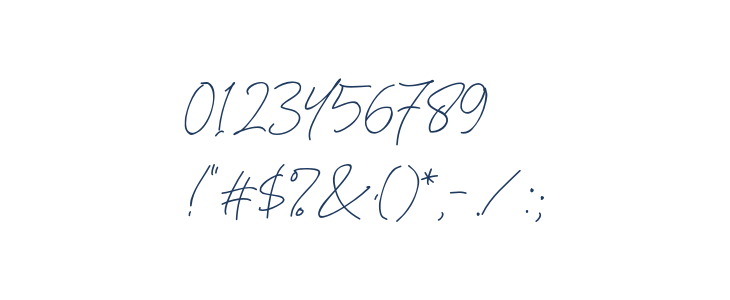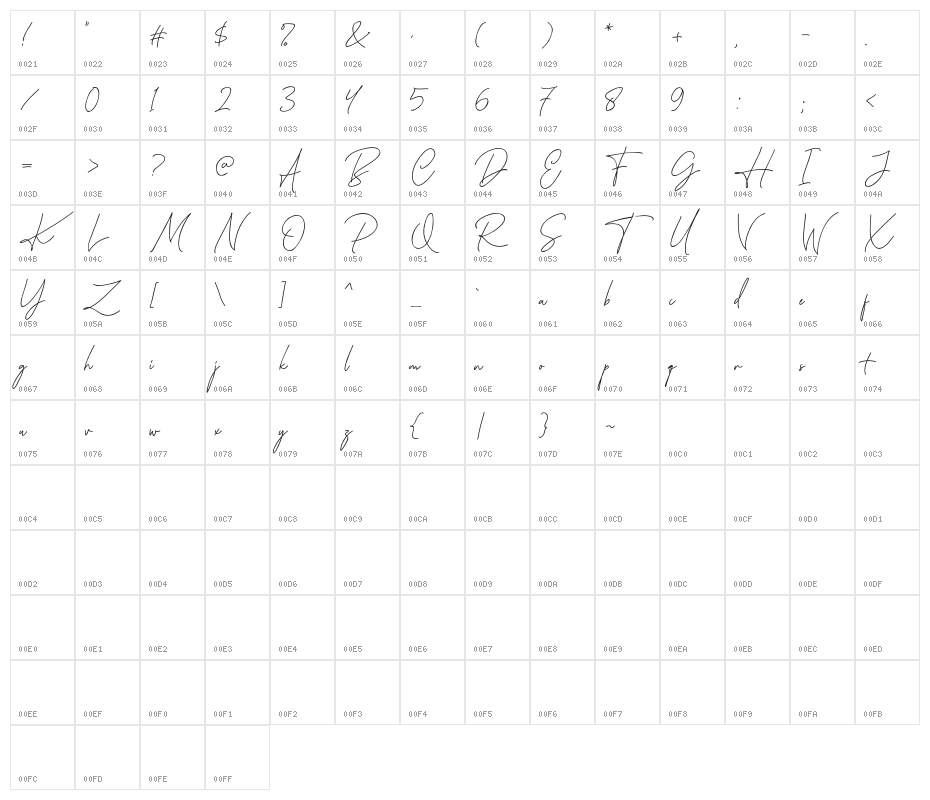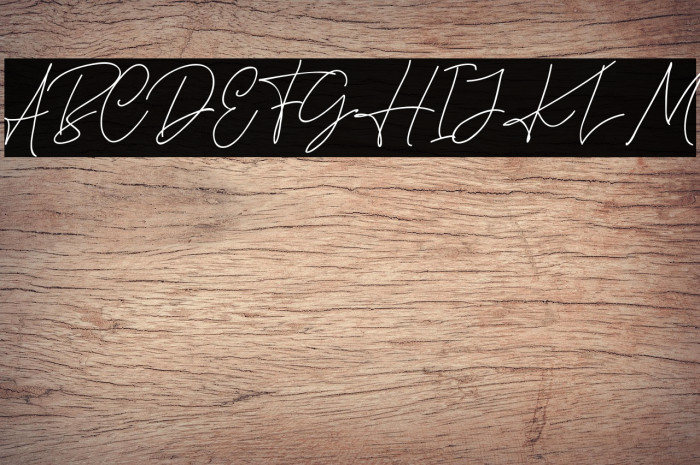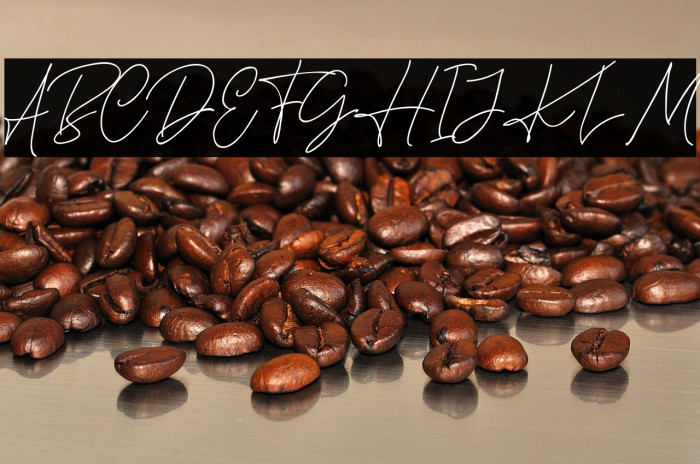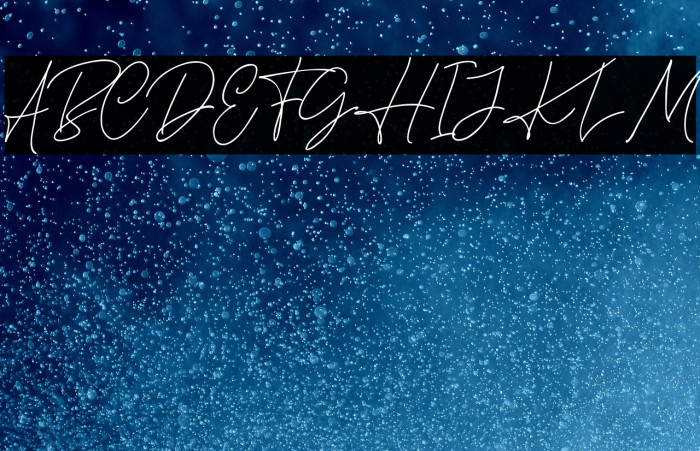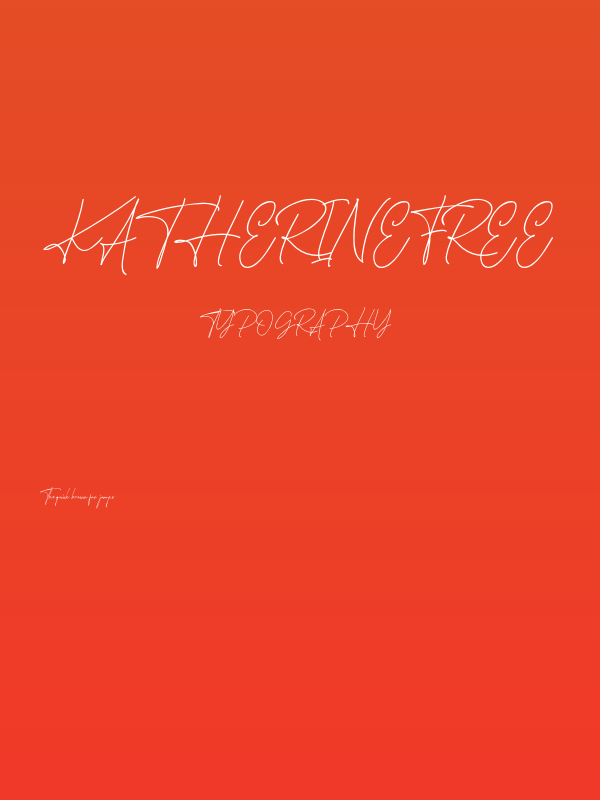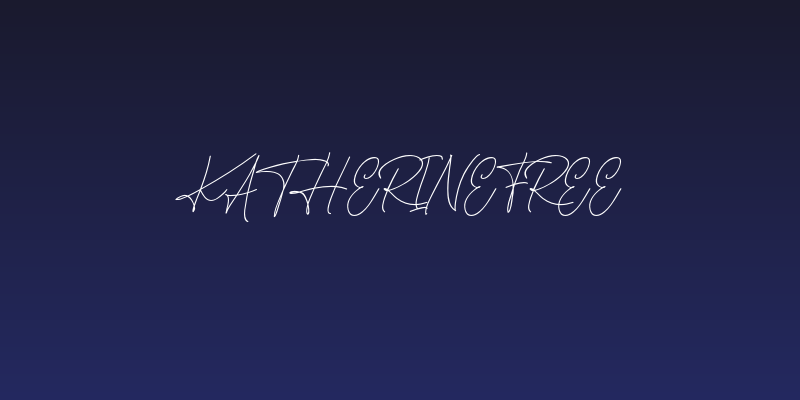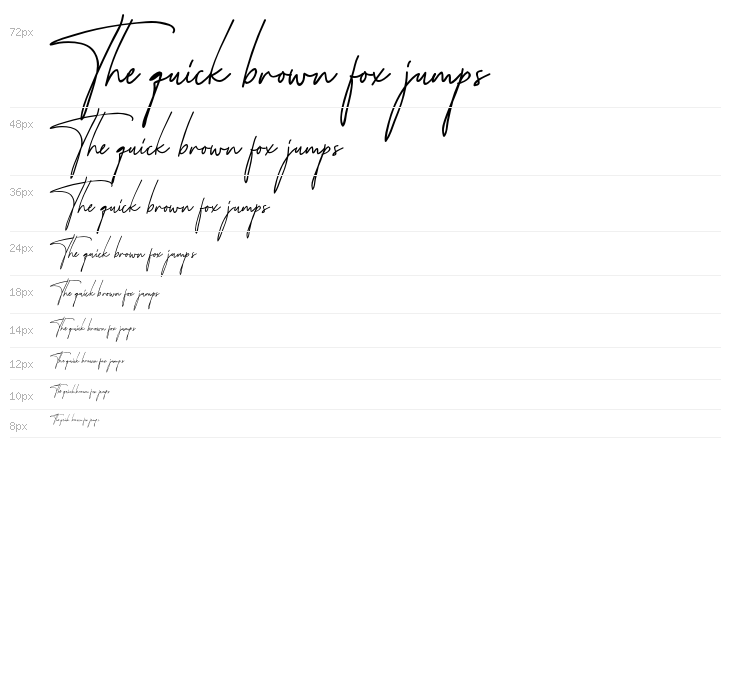
KatherineFree Font
KatherineFree Description
This font exudes a sense of elegance and fluidity, characterized by its handwritten style that mimics natural cursive writing. The uppercase letters are tall and slightly slanted, giving a sense of movement and grace. The lowercase letters maintain a consistent flow, with smooth connections between each character, enhancing readability while retaining a personal touch. The numerals are distinct and clear, matching the overall aesthetic with their slender and slightly curved forms. Special characters are crafted with the same attention to detail, ensuring they integrate seamlessly with the rest of the font. This font is perfect for projects that require a personal, yet sophisticated touch.
Overall StyleElegant, Personal
Use CaseLogos, Invitations, Personal Branding
Proposed ProjectsIdeal for wedding invitations, personal branding, greeting cards, and elegant stationery.